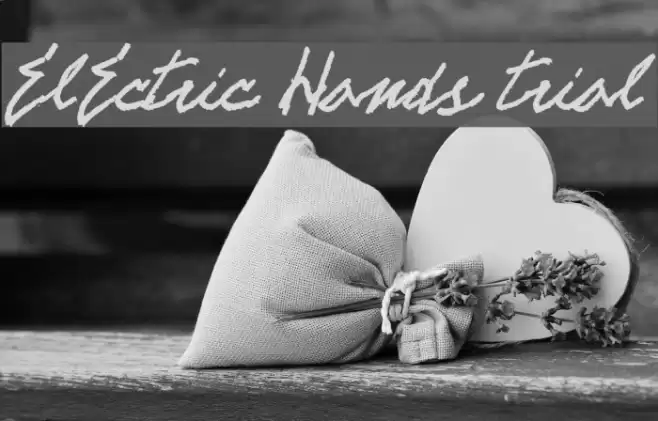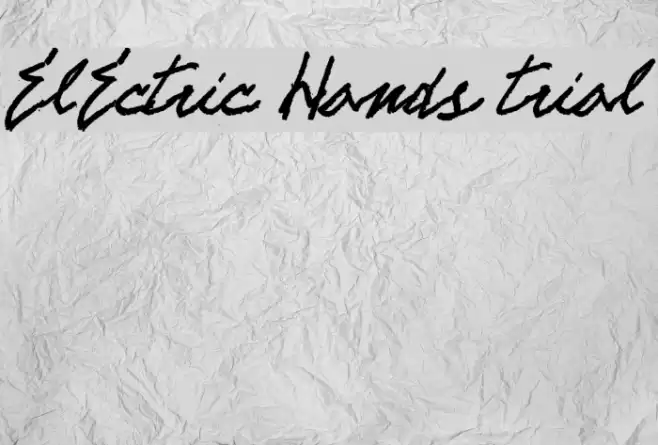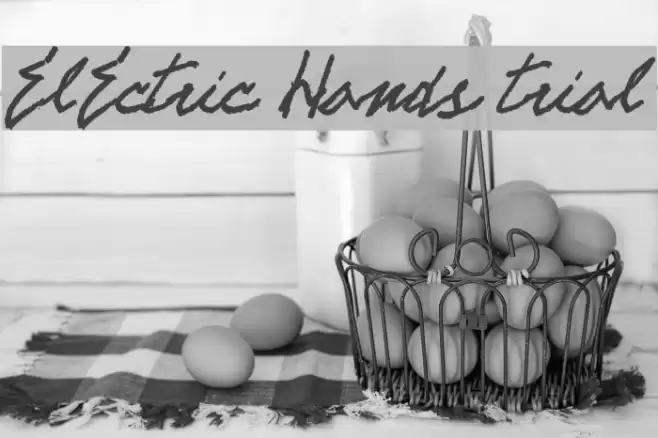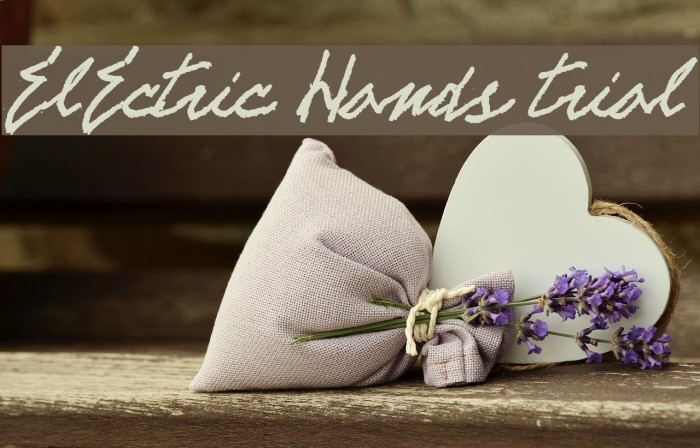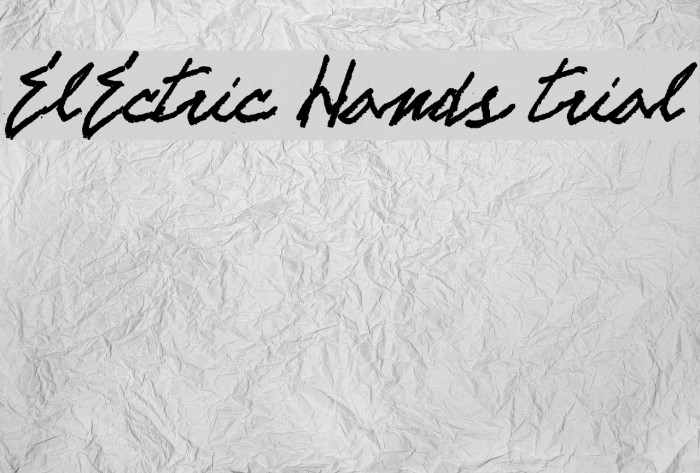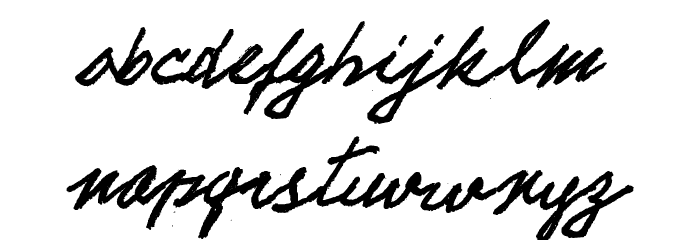
ELECTRIC HANDS trial Font
ELECTRIC HANDS trial Description
This font features a dynamic, handwritten style with a bold and energetic appearance. The letters are connected, mimicking a natural cursive handwriting, which gives it a personal and informal feel. The strokes are uneven, adding a sense of spontaneity and movement. The texture is slightly rough, suggesting a hand-drawn quality that enhances its authenticity. This font is ideal for projects that require a personal touch or a casual, artistic vibe. It stands out with its unique character and expressive style.
A dynamic, handwritten font with a bold, energetic appearance and connected cursive letters from Uncategorized fonts.
- Proposed Projects: Ideal for greeting cards, personal branding, artistic posters, and creative invitations.
- Character Spacing: Tight
- Use Case: Logos, Headlines, Artistic projects